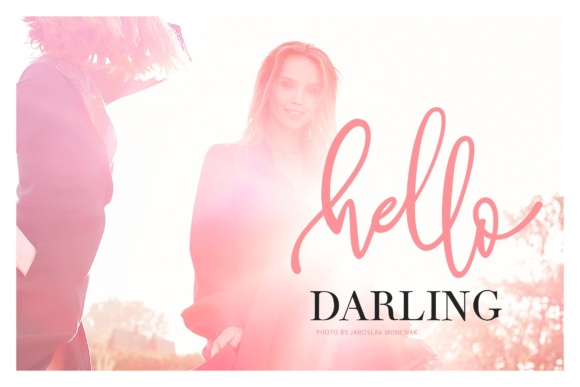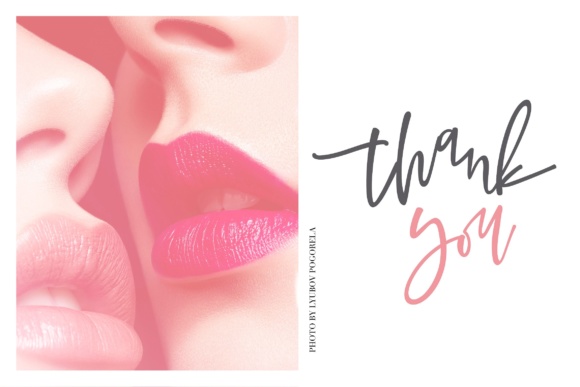
BetterFly 2 Font
db-ku.com - Script & Handwritten -- The BetterFly is a dynamic, modern calligraphy font. It has a playful and feminine look, which is great for wedding invitations and anniversaries, blogs and logos.